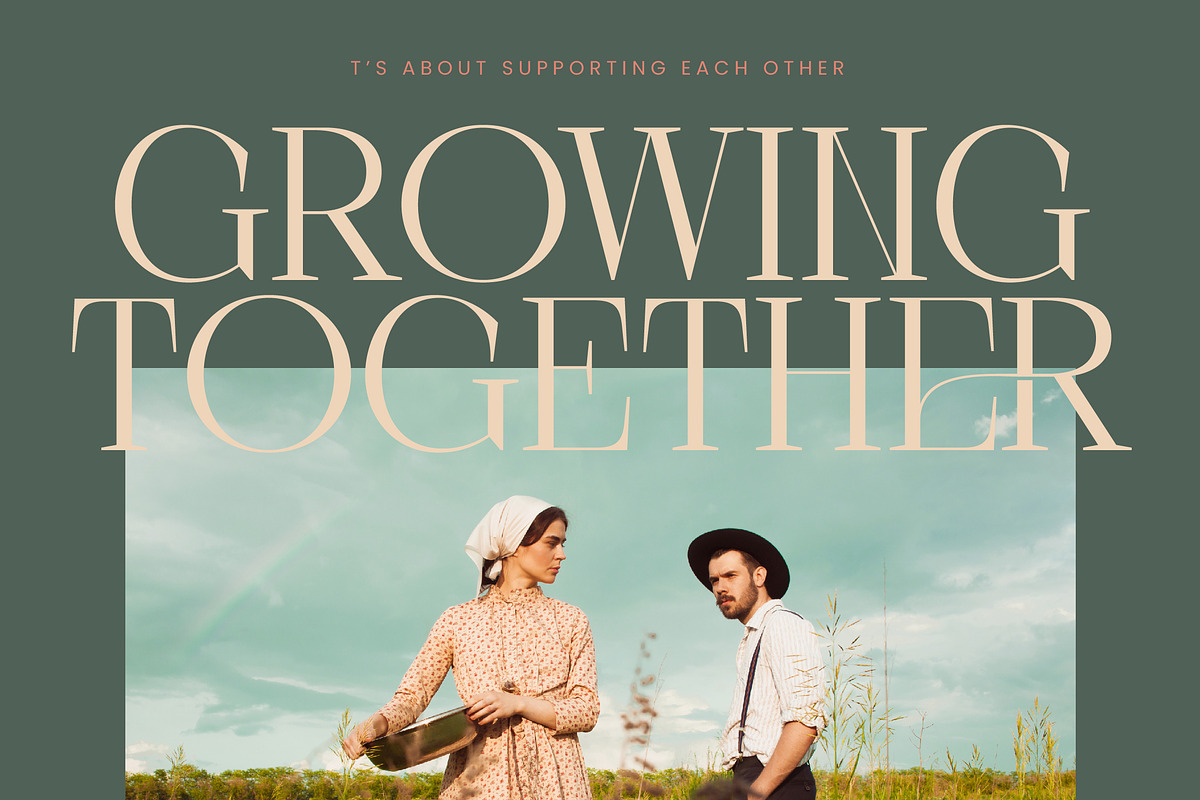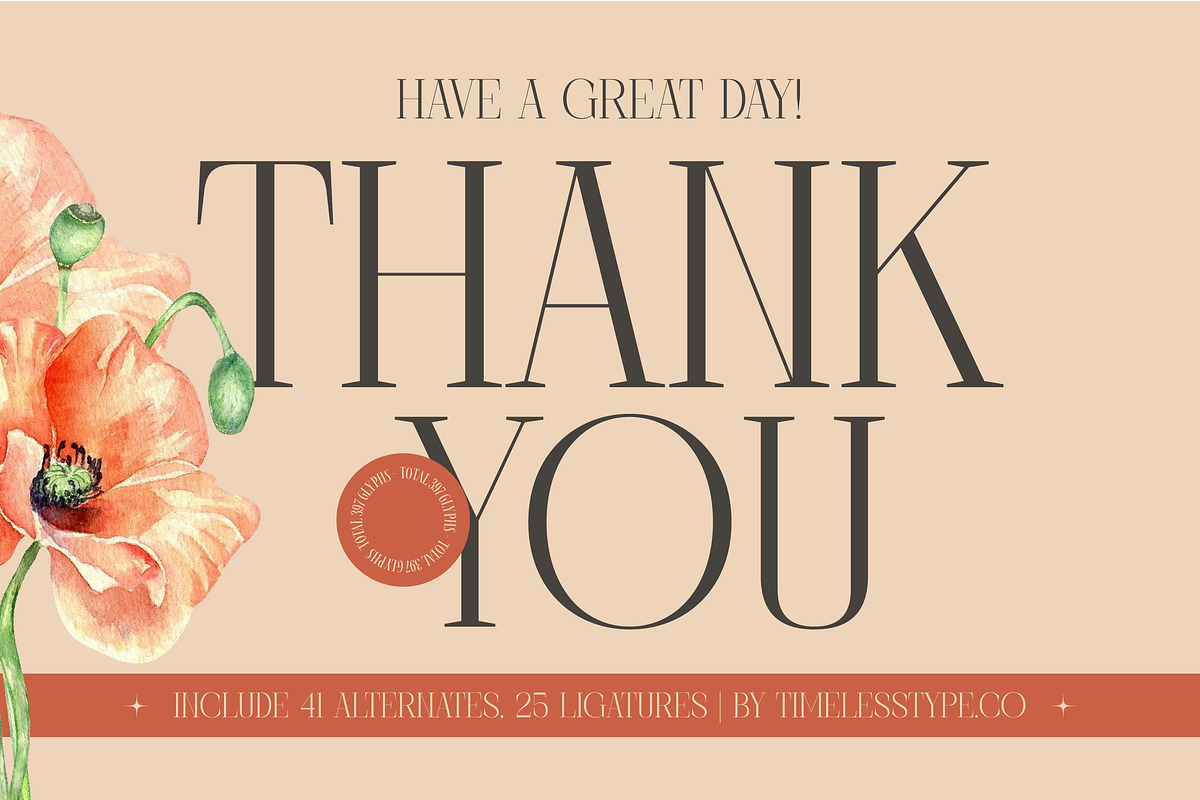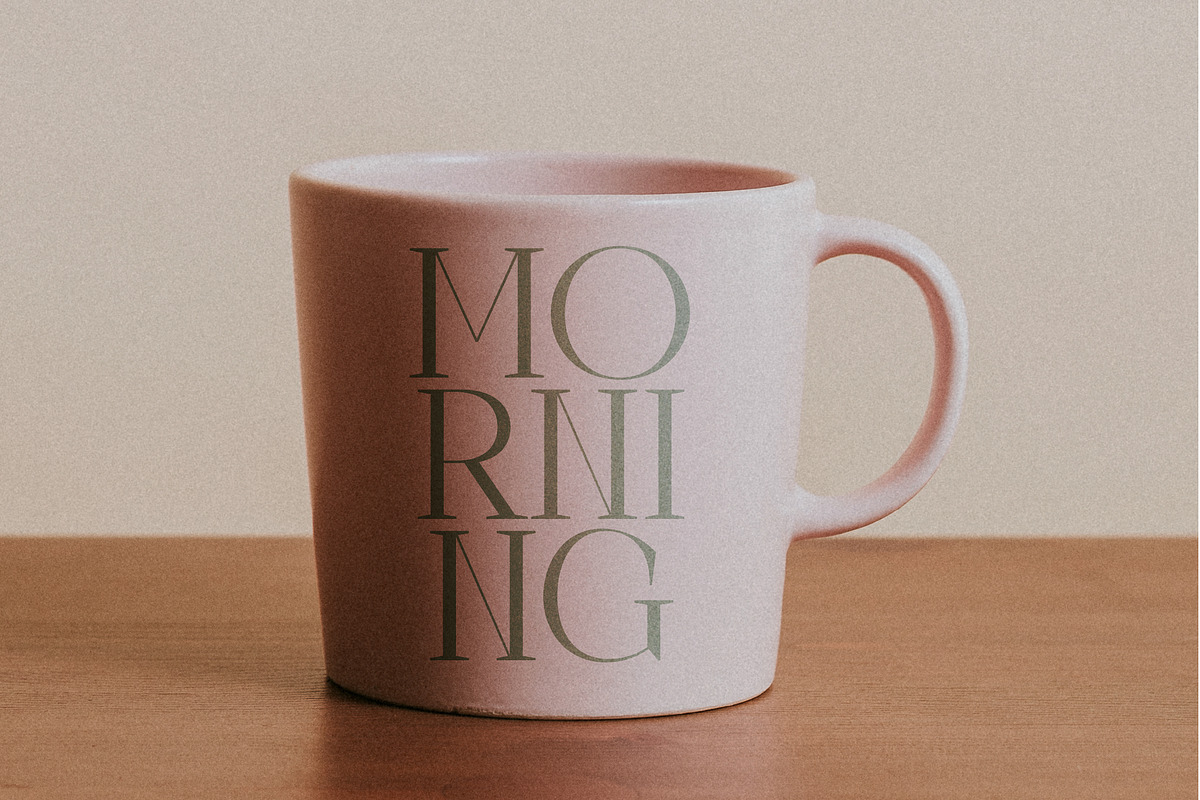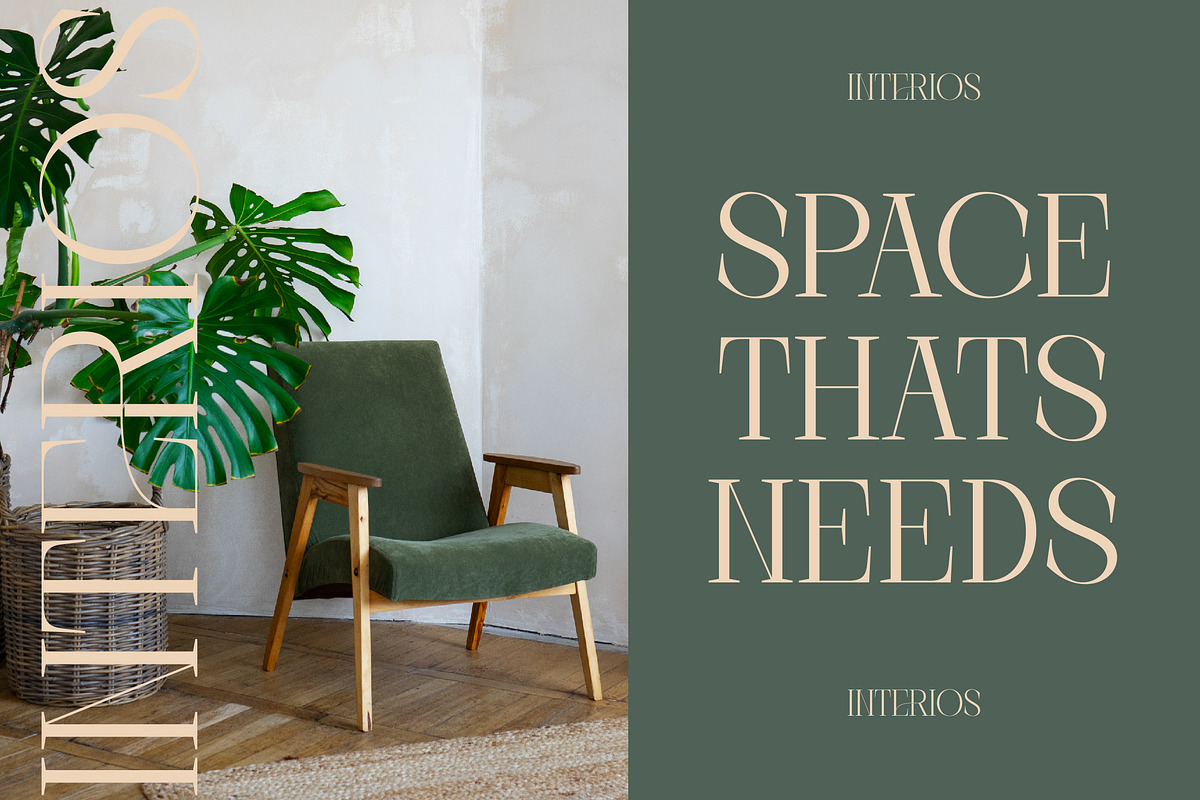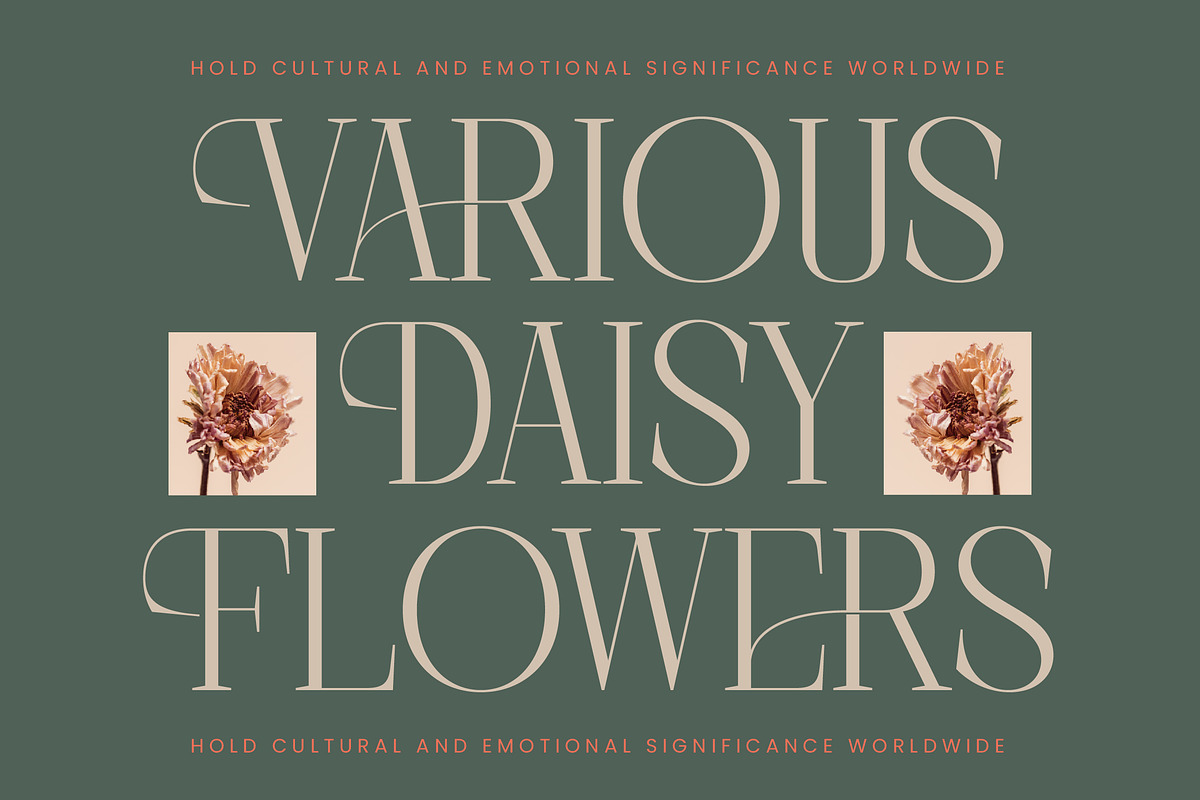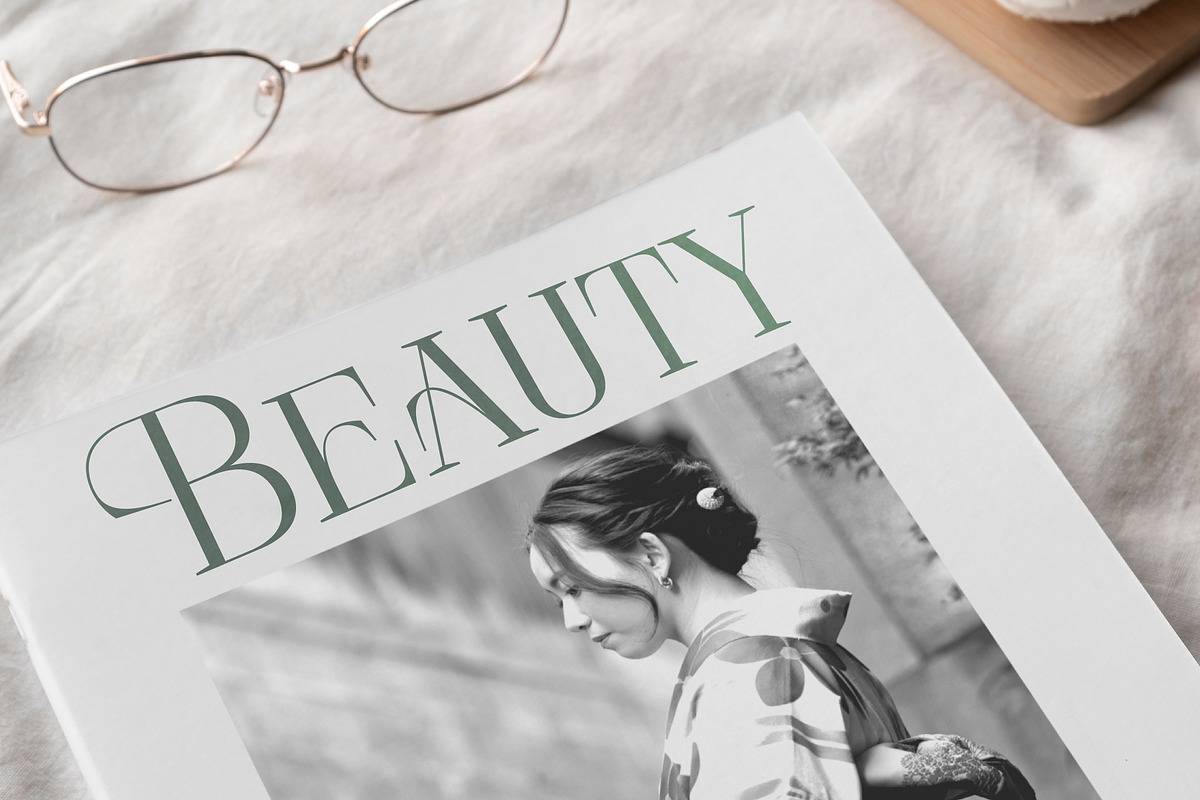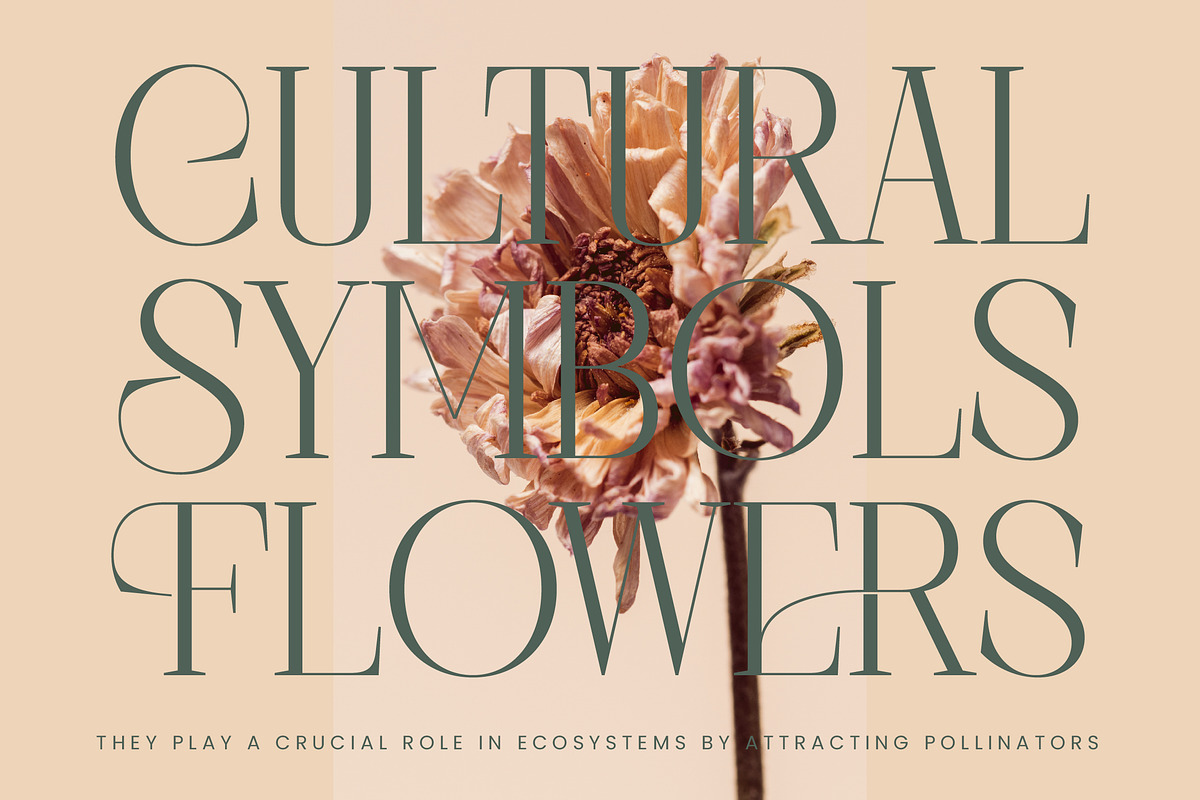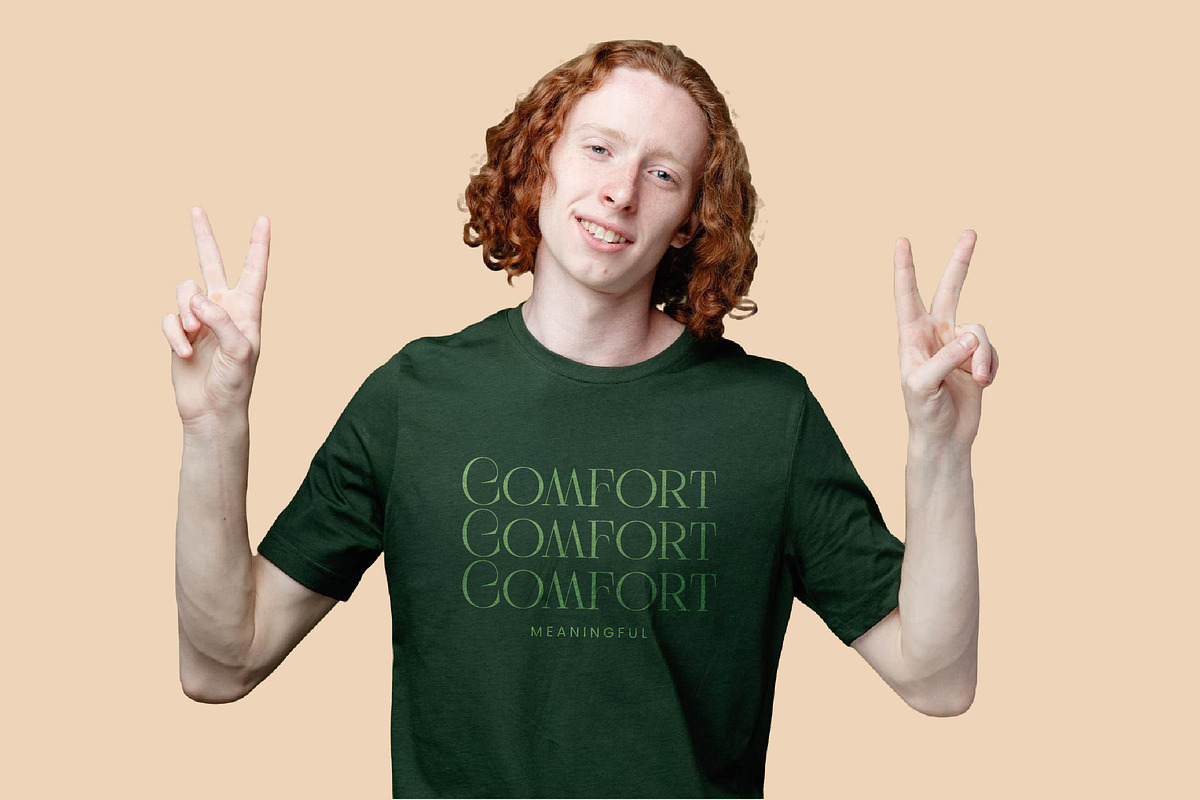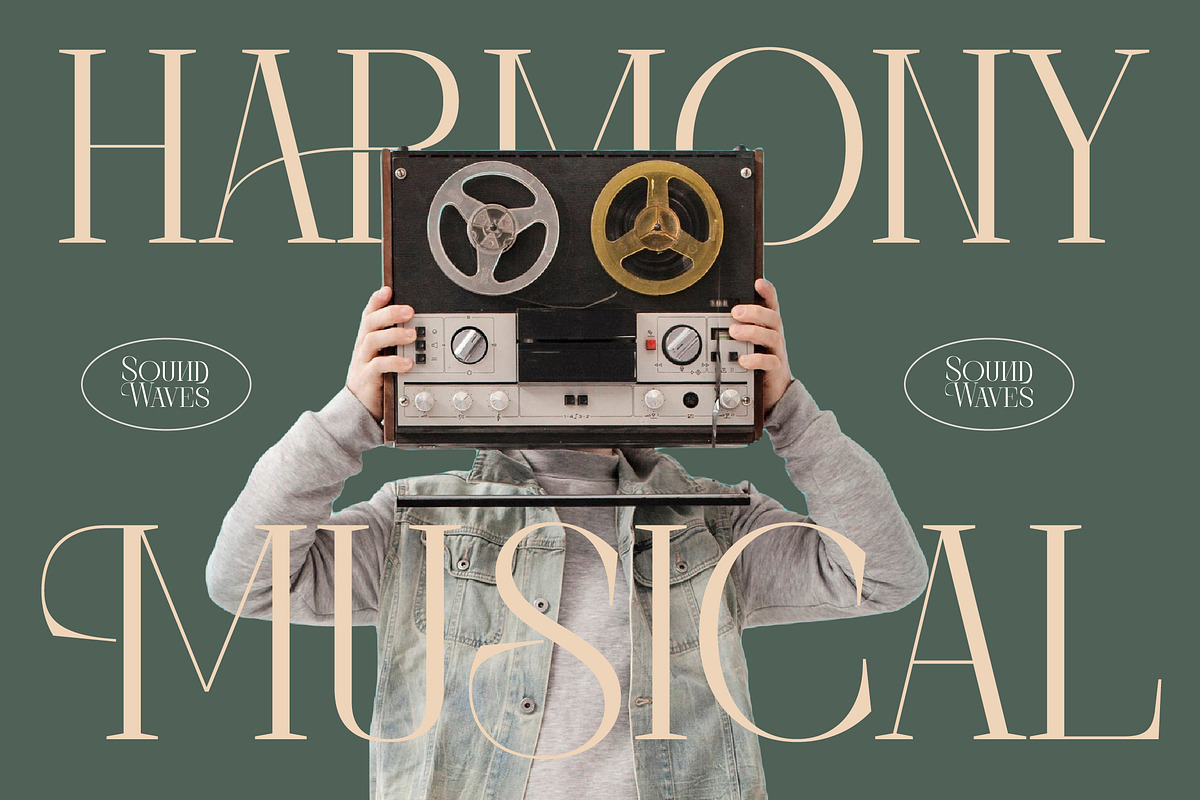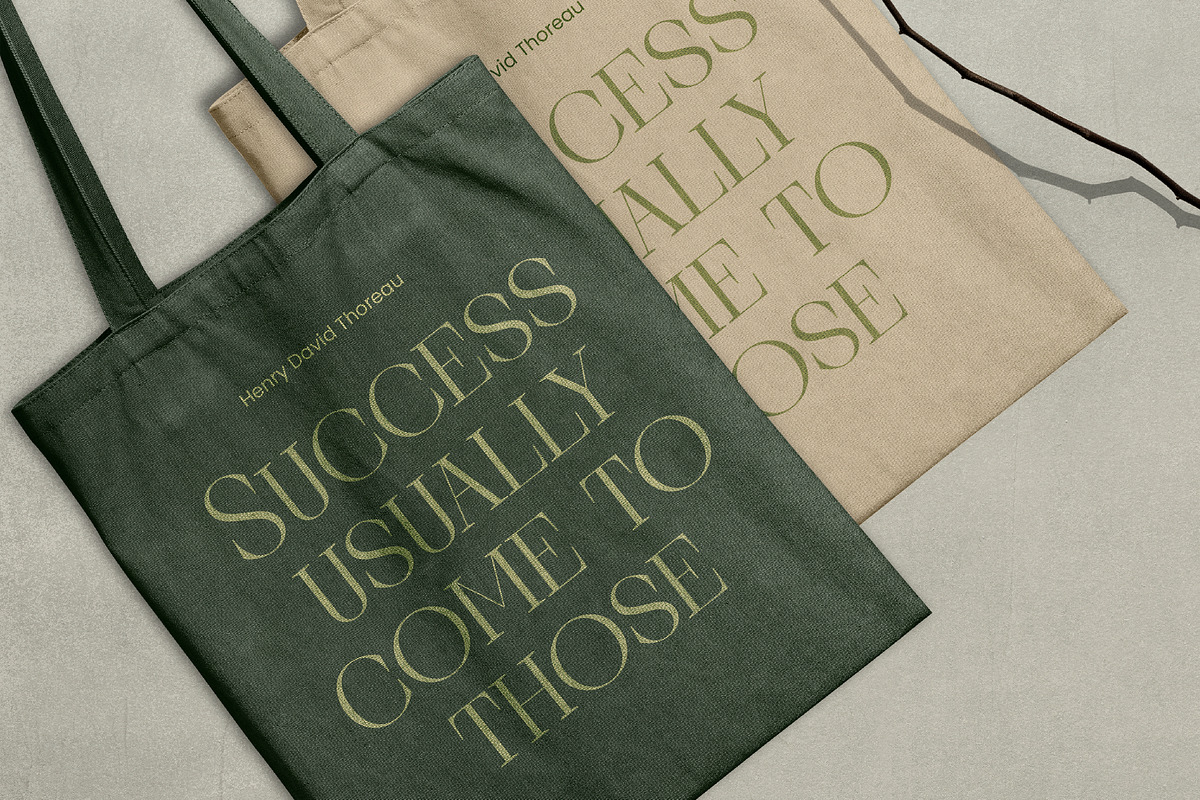
Barely Painter Elegant Serif Font
Discover the effortless sophistication of Barely Painter, a masterclass in refined aesthetics and high-impact visual storytelling. This typeface breathes life into every character, offering a seamless blend of classic charm and contemporary allure for your next masterpiece.
Inspired by the delicate interplay of light and shadow in an artist's studio, the font captures a botanical elegance that feels both organic and structured. Its tall, slender proportions and graceful curves evoke the timeless beauty of a hand-painted floral arrangement set against a warm, sun-drenched gallery wall.
Designed to command attention, this modern serif display is the epitome of luxury typography, featuring a high-contrast serif design that ensures an unmistakable editorial font quality. It is built specifically for professional designers seeking maximum branding impact with a touch of haute couture grace.
Perfectly aligned with the current modern serif trend, this typeface meets the rising demand for editorial display fonts that feel personal and unique. It stands out as a premier example of character-driven typography that transforms simple text into a curated work of art for the discerning eye.
This versatile typeface is the ideal choice for high-end logo design and comprehensive branding projects that require a sophisticated edge. From luxury editorial layouts and chic packaging to romantic wedding stationery and elevated fashion lookbooks, it adapts beautifully to every creative medium.
Elevate your creative toolkit with extensive OpenType features including unique ligatures and creative alternates that allow for endless customization and flair. The font also includes full support for multilingual projects and a comprehensive set of international characters to ensure your message resonates worldwide.
- Ligature 25 Alternate 41